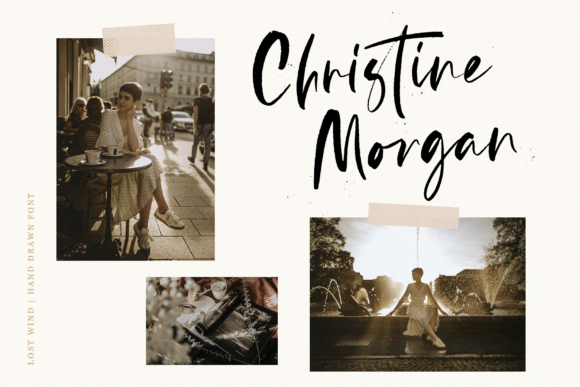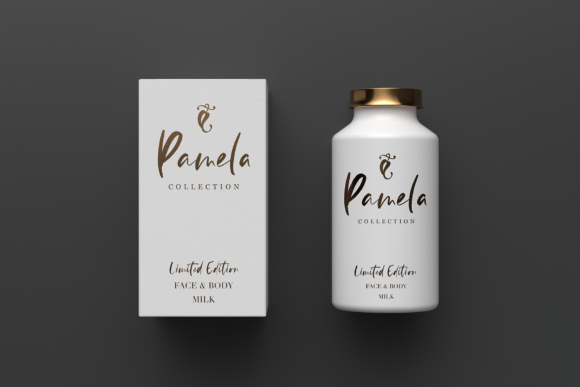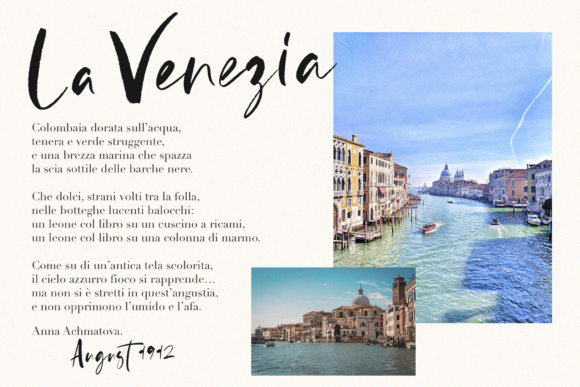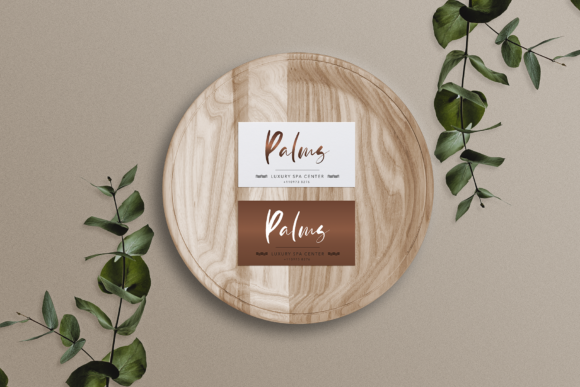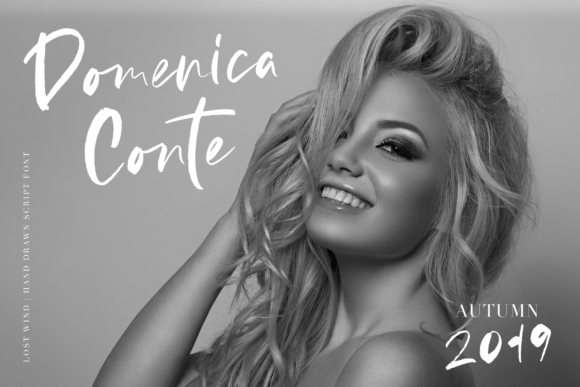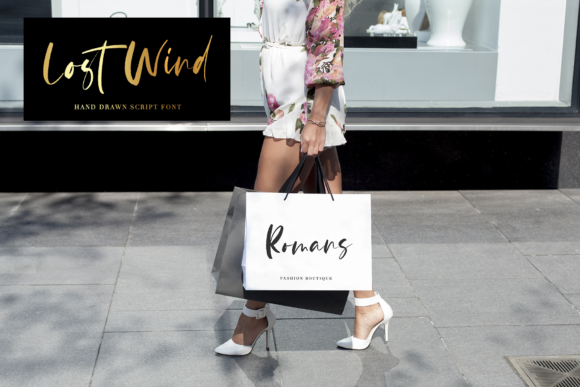
Introduction to Lost Wind Font
As a designer, you know the thrill of stumbling upon the perfect font to elevate your creative project. The moment when all the elements come together, and your vision takes shape. That’s exactly what the Lost Wind Font promises to deliver – a beautiful and elegant hand-drawn brush font that will set your work apart.
Whether you’re working on a branding project, crafting a logo, or designing a book cover, the Lost Wind Font is a valuable resource that can add a touch of sophistication and individuality to your work. Its high-quality design makes it perfect for a wide range of applications, from marketing materials to stationery, blogs, and magazines.
Key Features of Lost Wind Font
- High-quality, unique design for creative projects, available for free download.
- Transparent background, allowing for seamless integration with various backgrounds and designs.
- Includes a range of glyphs and characters, making it a versatile design resource for various creative projects.
- Designed to be highly legible and visually appealing, making it an ideal choice for a wide range of creative projects.
Honest Review: Lost Wind Font
As a designer, I’m always on the lookout for unique and high-quality design resources. The Lost Wind Font is a free download that caught my eye, and I’m excited to share my honest review.
- ✨ Unique and creative design – The Lost Wind Font has a quirky, hand-drawn feel that sets it apart from other fonts.
- ✨ High-quality design – The font is well-crafted and has a clear, readable design.
- ✨ Transparent background – This makes it easy to use the font on a variety of backgrounds and designs.
- ⚠️ Limited character set – The font only includes a limited set of characters, which may not be suitable for longer text.
- ⚠️ Not ideal for body text – While the font is great for headlines and titles, it may not be the best choice for large blocks of body text.
Overall, I think the Lost Wind Font is a great design resource for creative projects. While it may have some limitations, its unique design and high-quality craftsmanship make it a great choice for designers looking to add a touch of personality to their work.
Tips for Getting the Most Out of the Lost Wind Font
To get the most out of the Lost Wind Font, use it with a transparent background to create a clean and modern design. Experiment with different font sizes and styles to add visual interest to your project.
The Lost Wind Font is commonly used in creative projects such as logos, business cards, and brochures. It is also used in digital designs such as social media graphics and website headers.
Can I use the Lost Wind Font with a transparent background?
Yes, the Lost Wind Font has a transparent background, making it ideal for use with images or videos. Simply apply the font to your design and set the background to transparent to achieve a seamless look.
What makes the Lost Wind Font a high-quality design resource?
The Lost Wind Font is a high-quality design resource due to its crisp, clean lines and unique typography. It’s perfect for use in creative projects, such as branding, packaging, and advertising, where a distinctive and eye-catching font is required.